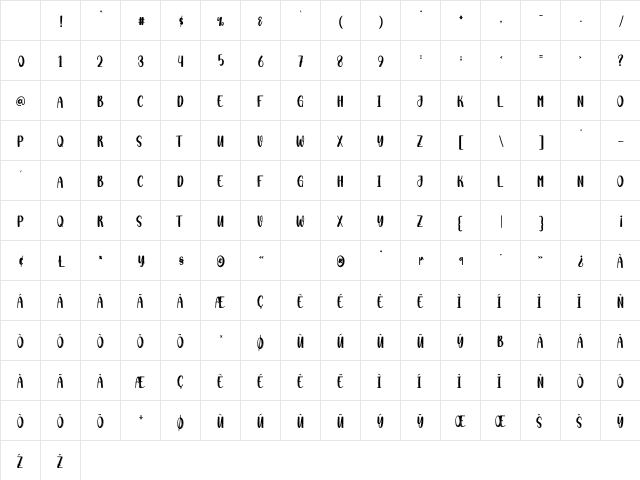
Complete Wonder Winter Regular glyph index. Displaying only characters natively supported by Wonder Winter Regular font.
Wonder Winter is a composed and adaptable typeface that performs quietly and consistently across a wide range of design contexts.